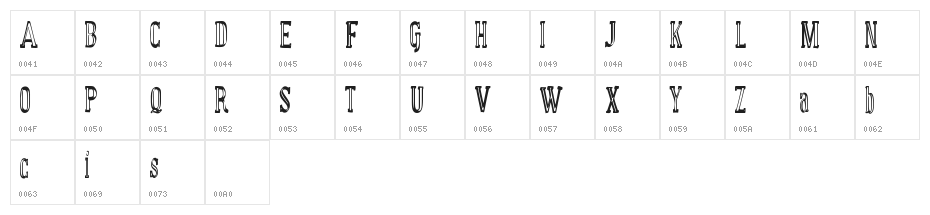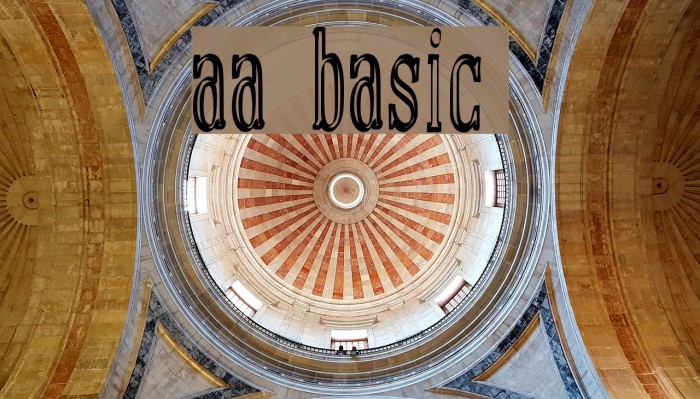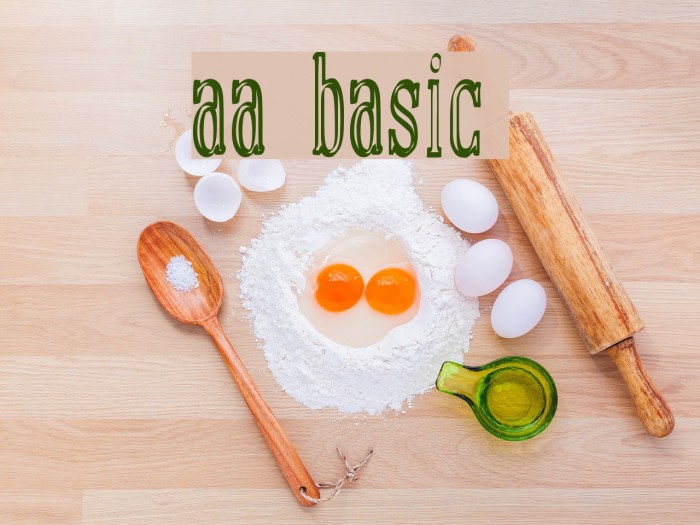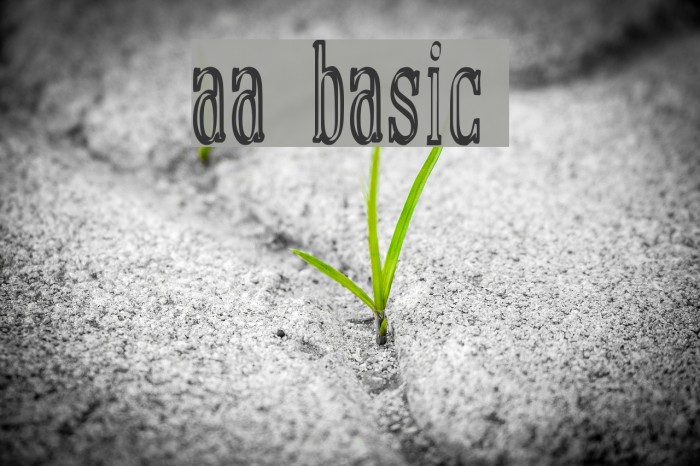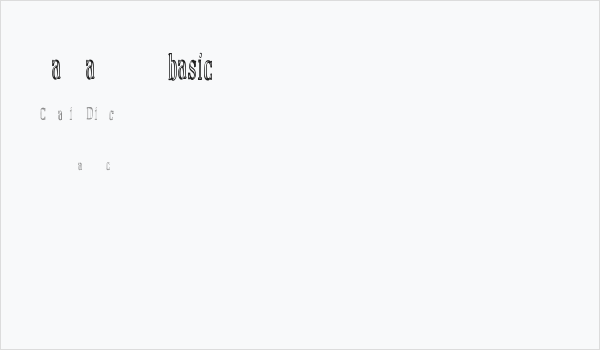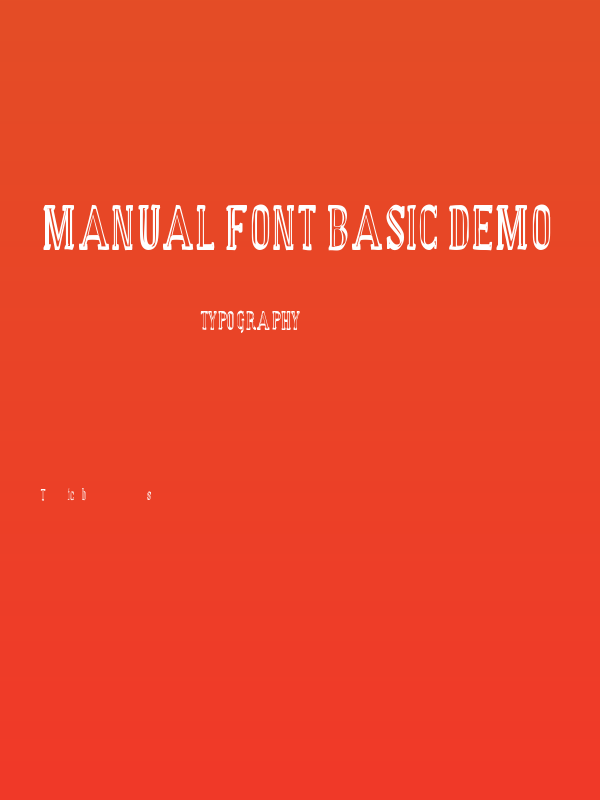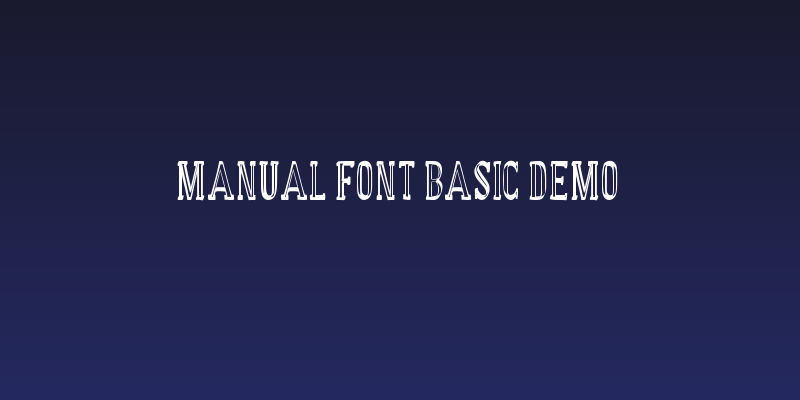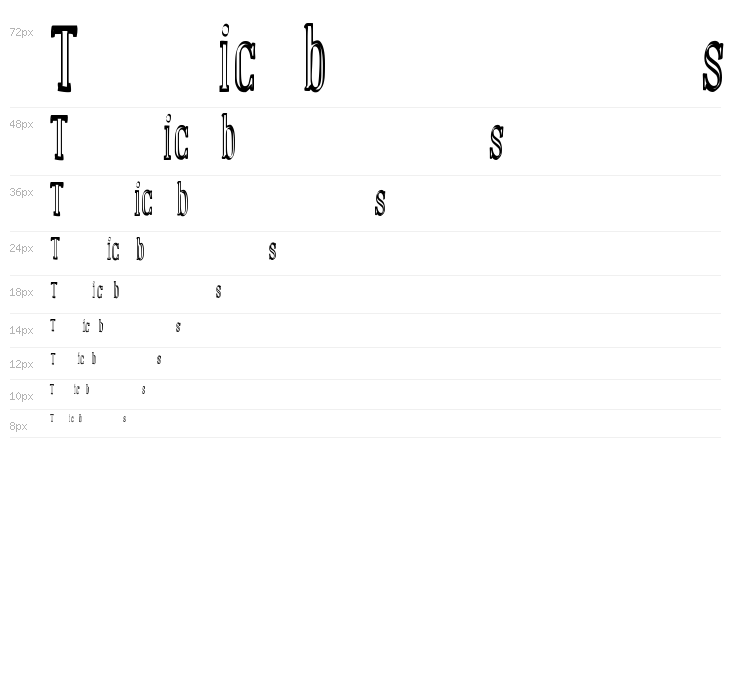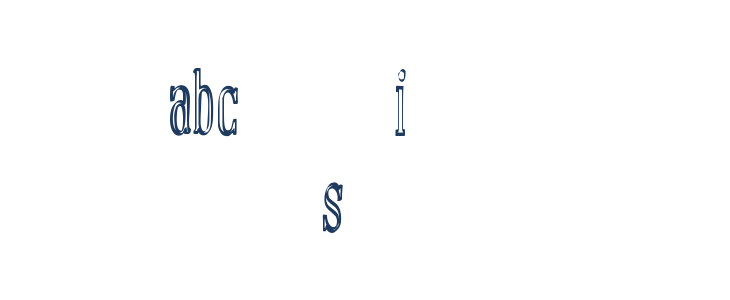
manual font basic demo Font
manual font basic demo Description
This font exhibits a bold and decorative style with a distinct vintage flair. The uppercase letters are characterized by thick, solid strokes with subtle serifs, giving them a strong and commanding presence. The lowercase letters maintain the decorative theme, with unique embellishments that add to the font's overall charm. The font's design includes a mix of straight and curved lines, creating a dynamic and visually engaging appearance. The spacing between characters is relatively tight, enhancing the compact and cohesive look of the text. This font's high contrast in stroke thickness further emphasizes its boldness and decorative nature, making it suitable for projects that require a touch of elegance and sophistication.